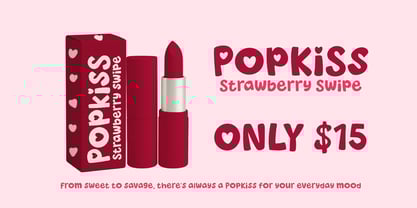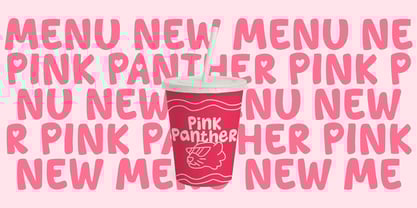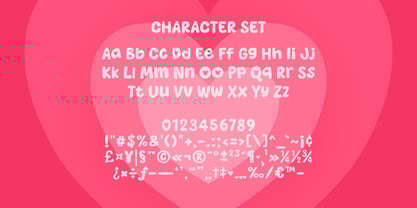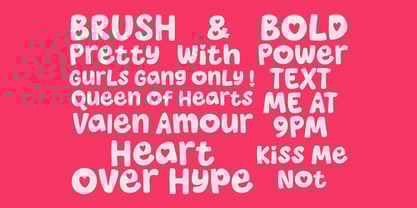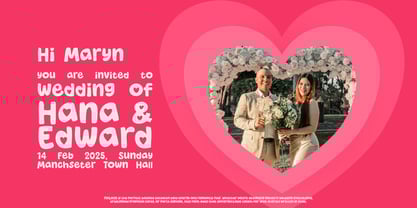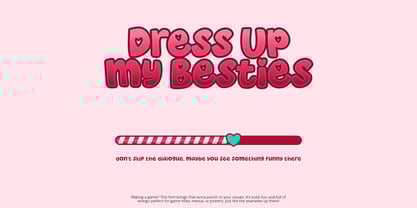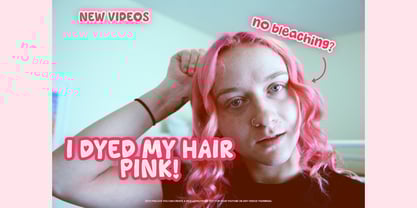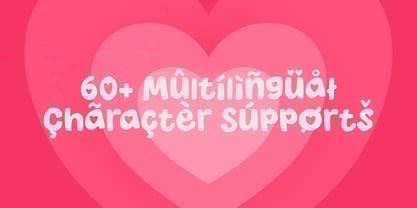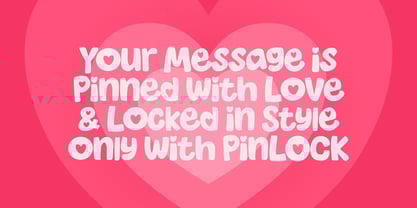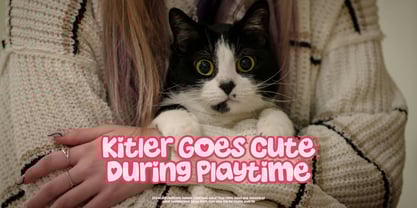
PINLOCK is a bold, lovely, and heart-infused display font that brings a playful and romantic feel to your creative work. With rounded shapes and adorable heart accents, this typeface is perfect for Instagram posts, children's books, baby shower invitations, romantic packaging, and branding for love-filled products. Add charm, fun, and sweetness to your design with this one-of-a-kind cute display font.
PINLOCK is a charm-filled display font with a playful, romantic personality. Designed to express affection, cuteness, and approachability, this font is perfect for brands that want to stand out with love and joy.
Style & Vibe: Soft, rounded, bubbly, cute with heart-themed flair
Audience Fit: Perfect for baby/kids products, valentine merch, teen girl brands, Instagram quotes, and wedding-related content
Letterform Style: Handcrafted, smooth curves with a bold structure and signature heart symbols embedded in key letters
Best Use Cases: Social media graphics, packaging, greeting cards, logo design, baby shower invites, T-shirts, romantic brand headlines
If your brand, design, or message is all about spreading love and fun, PINLOCK is your dream font. It brings instant charm to your work, without needing fancy effects—just letters that love you back.
💖 Playful Personality
Its whimsical curves and heart-shaped details make it instantly lovable.
🎀 Perfect for Romantic & Cute Branding
Ideal for designs that target a warm, youthful, or emotionally vibrant audience.
📱 Made for the Digital Age
Looks beautiful on Instagram, Pinterest, Etsy shops, and modern e-commerce stores.
🧸 Versatile Use
Great for merch, kids' books, story titles, greeting cards, and even cozy cafés or gift shops.
🧡 Easy to Use & Read
Despite its playful design, the font maintains strong readability in both large and small sizes.